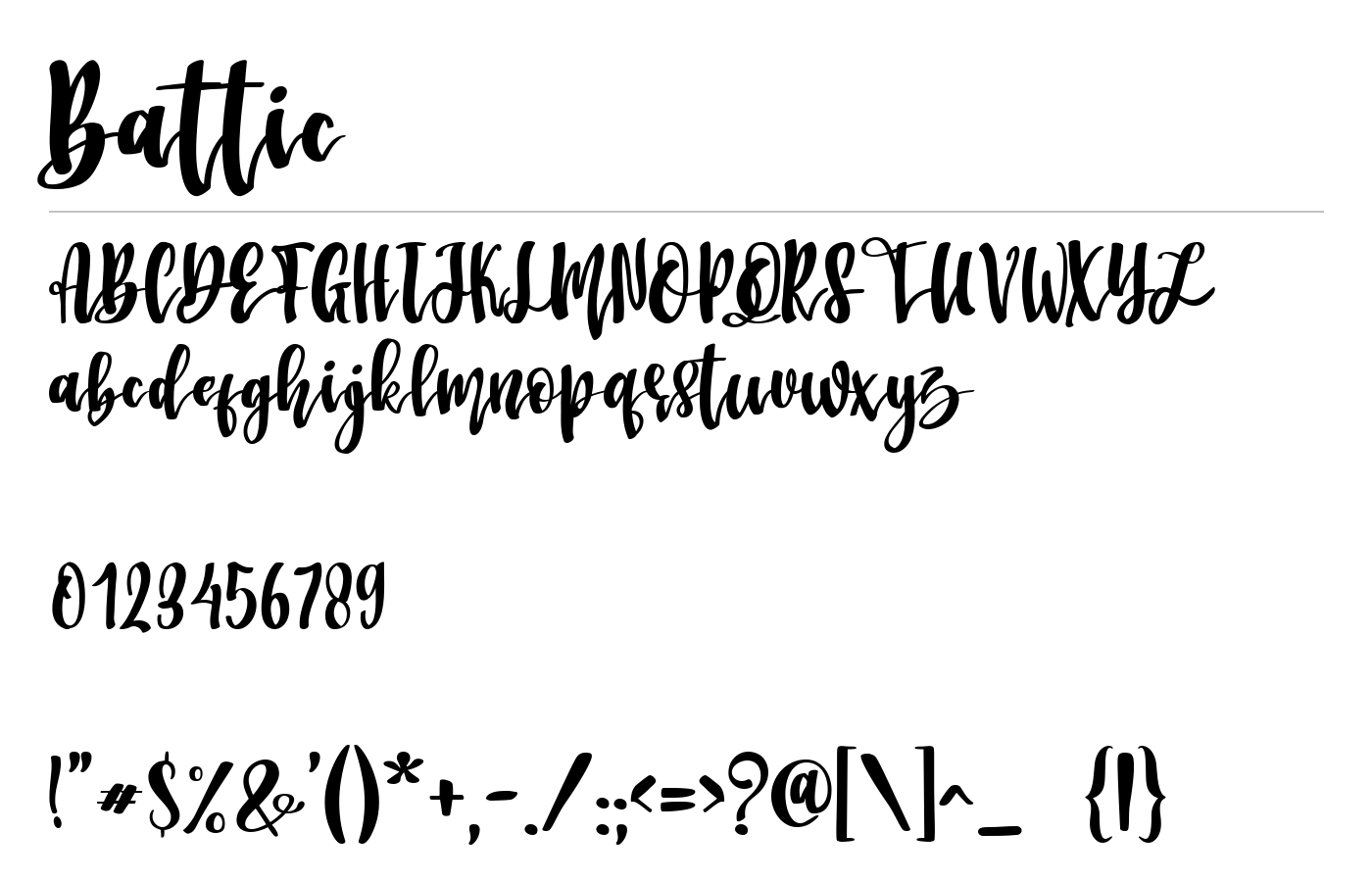
Battic is a lively and charming script font that features smooth, flowing strokes with a friendly, handcrafted feel. Its bold yet elegant style with playful curls and swashes makes it perfect for creative branding, invitations, and eye-catching headlines that seek a personal and stylish touch. This font works beautifully where a warm, inviting atmosphere is desired, such as in fashion, lifestyle, and artisanal projects.
Battic Font
About Battic Font